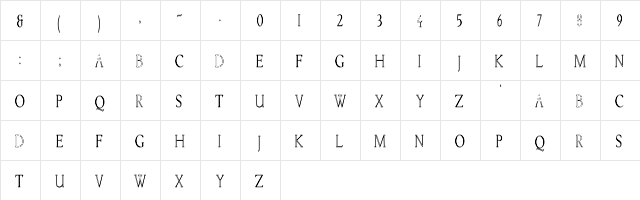
KellnearHC Regular
Design Context for KellnearHC Typeface
KellnearHC offers clean, dependable letterforms without strong stylistic allegiance, making it a practical choice for designers who need flexibility.